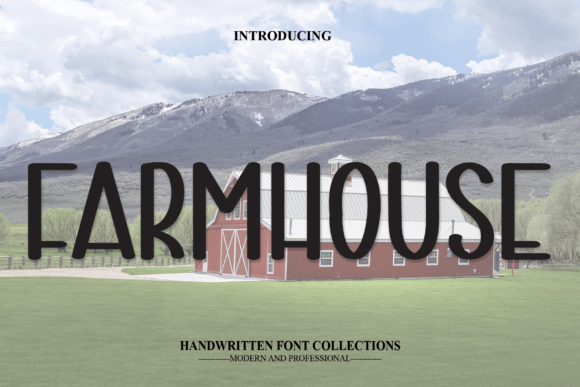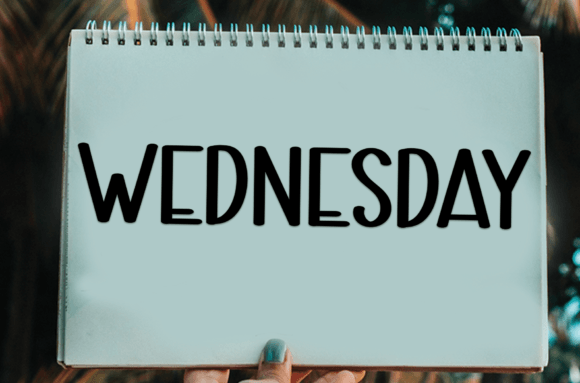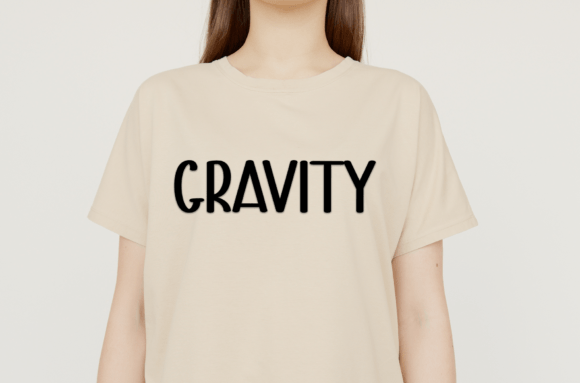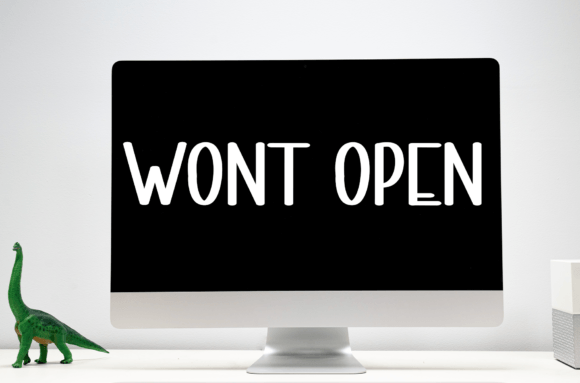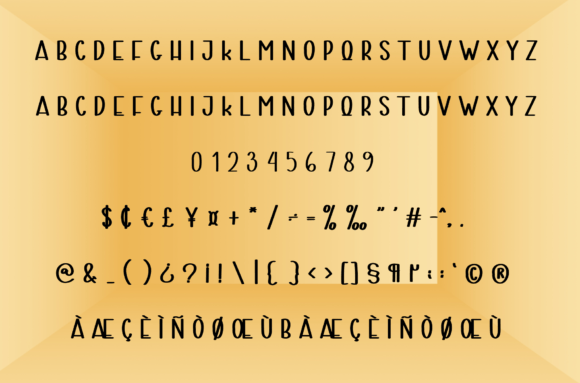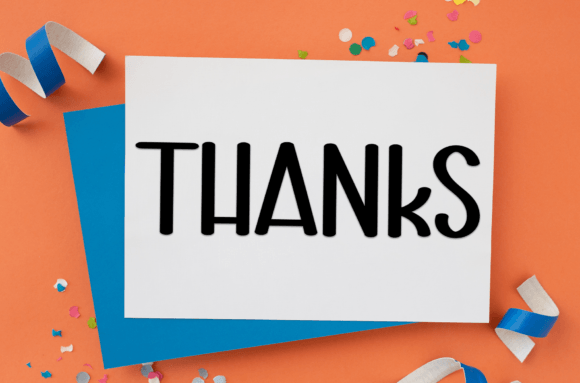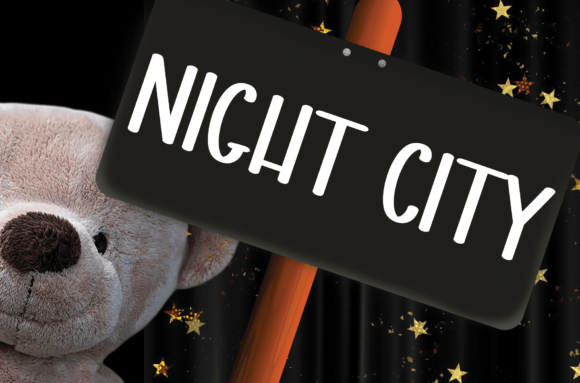
Farmhouse Font
About Farmhouse Font
Farmhouse is a sweet and friendly handwritten font crafted to bring a touch of warmth to every design. It has a relaxed, approachable style that feels welcoming and joyful. Whether you are creating wedding invitations, greeting cards, or digital graphics, Farmhouse can help you express heartfelt messages with ease.
This font blends clean lines and natural curves, creating a smooth and organic appearance. Every letter feels as if it was written by hand, adding a personal touch to your work. Designers love its simple charm and the way it makes text feel genuine and memorable.
Perfect for Wedding Invitations and Special Events
Farmhouse shines in romantic and celebratory designs. If you are planning a wedding, bridal shower, or anniversary party, this font brings a lovely, handmade look to every piece of your stationery.
Use Farmhouse for:
• Invitations
• Save-the-date cards
• Thank-you notes
• Table numbers
• Menus
• Wedding programs
Its casual elegance fits perfectly with rustic, farmhouse, or vintage themes. It feels warm and inviting, just like a handwritten note from someone you love.
Versatile and Easy to Use
Farmhouse is a great choice for a variety of projects beyond weddings. Try it in:
• Greeting Cards: Birthdays, baby showers, and holidays are even more special with friendly handwritten text.
• Social Media Posts: Share quotes, promotions, or updates with a relaxed style.
• Branding: Create logos, product labels, or packaging for small businesses and handmade brands.
• Crafts and DIY Projects: Add a sweet touch to scrapbooks, journals, and handmade gifts.
• Home Decor: Make wall art, farmhouse signs, or kitchen prints that feel personal and unique.
This font’s versatility makes it a reliable option for designers, crafters, and small business owners alike.
Why You’ll Love Farmhouse Font
Here are a few reasons why Farmhouse will become your new favorite:
• Friendly Style: Every letter feels inviting and warm.
• Handwritten Touch: Adds authenticity and personality to any project.
• Highly Legible: Even with its playful look, it stays clear and easy to read.
• Timeless Look: Suitable for modern and classic designs alike.
• Adaptable: Works beautifully in both print and digital formats.
Design Tips for Beautiful Results
To make the most of Farmhouse, consider these simple tips:
1. Pair with Simple Fonts: Combine with a clean sans-serif for a balanced look.
2. Use Soft Colors: Warm tones and pastels enhance its friendly style.
3. Leave Space: Let the letters breathe for a clean, airy feel.
4. Add Illustrations: Pair with hand-drawn elements or icons.
5. Play with Size: Use large headlines to show off its curves.
Farmhouse makes any project feel special. From weddings to home decor, it’s a font that speaks from the heart. Try it today and see how it transforms your designs with its sweet, handwritten touch.